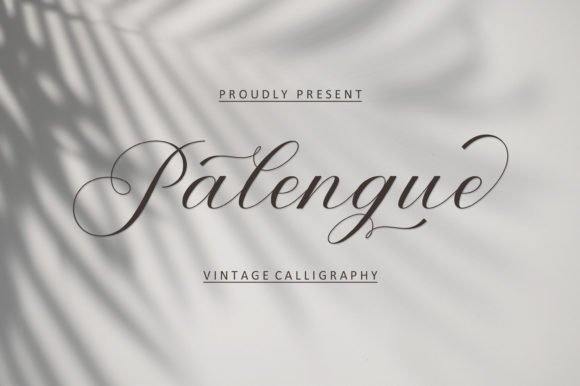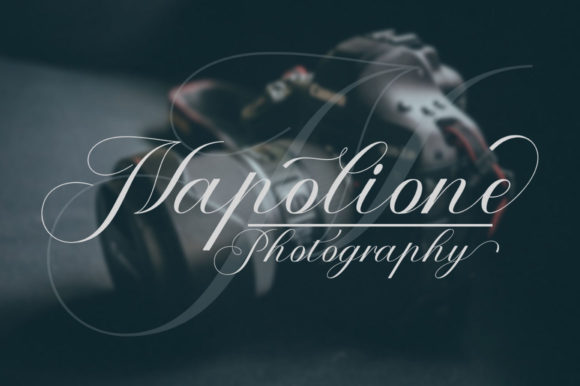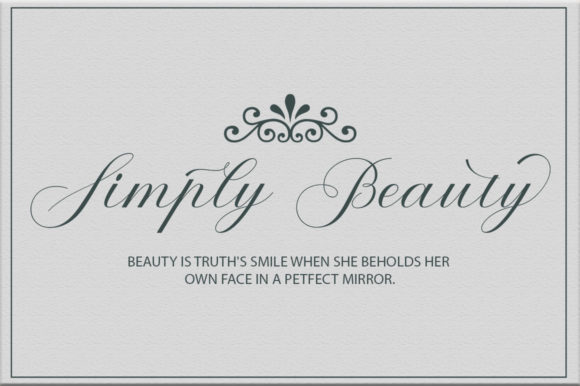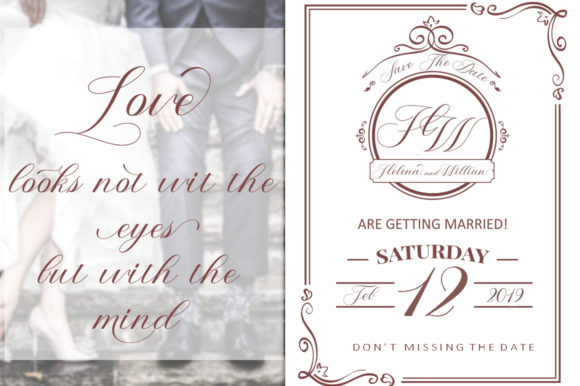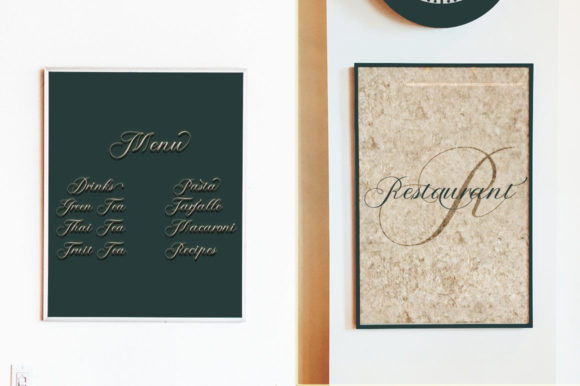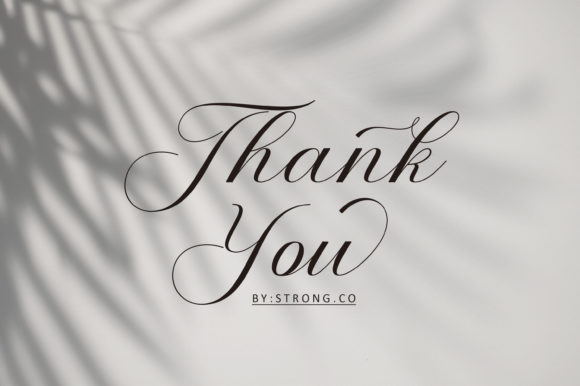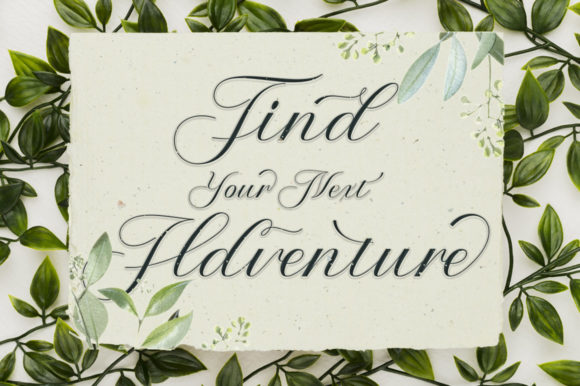
About Palengue Font
Palengue is an incredibly elegant and delicate handwritten font. It has beautiful and well balanced characters and as a result, it matches a wide pool of designs. Palengue features a varying baseline, smooth lines, gorgeous glyphs and stunning alternates.